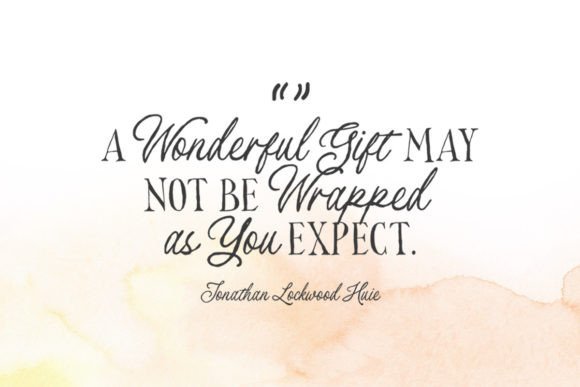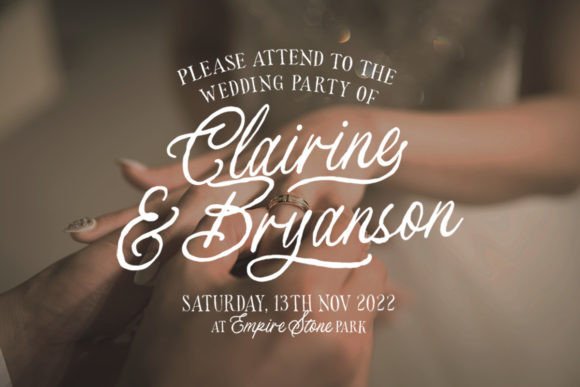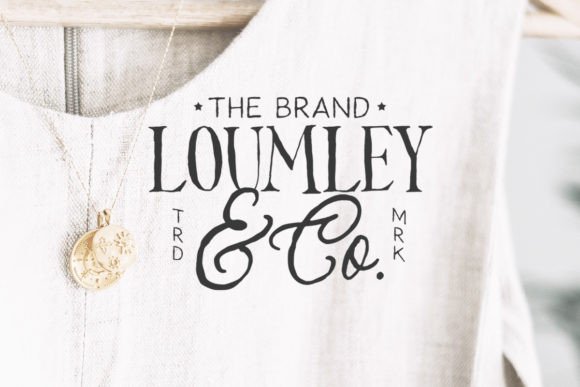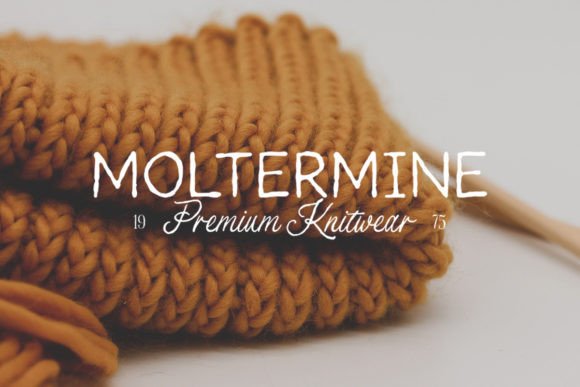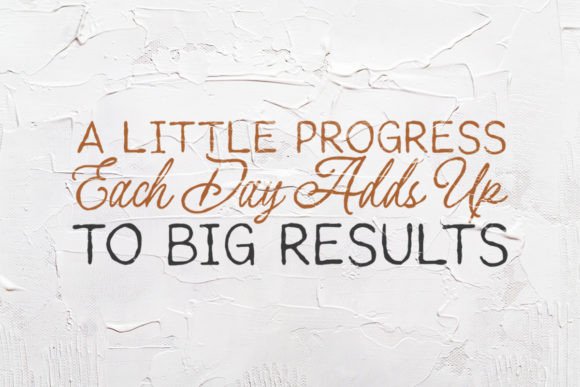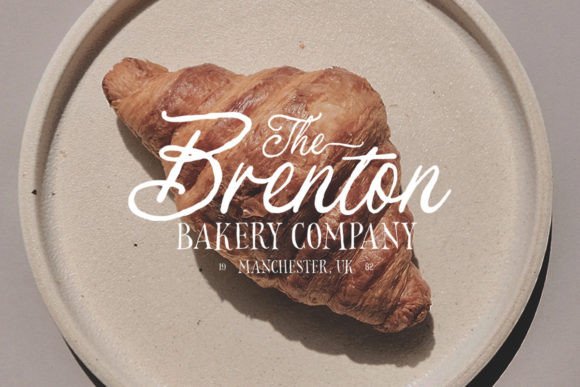
Unleash Your Creativity with the Timeless Fountain Persona Trio Font
Have you ever sat at your desk, staring at a blank page, waiting for the perfect idea to strike? For designers, this moment is all too familiar. But what if that spark of inspiration could be ignited by the perfect font? Introducing the Fountain Persona Trio Font – a stunning and elegant handwritten font trio that’s sure to captivate your audience.
With its incredibly distinct and timeless style, the Fountain Persona Trio Font is the perfect addition to any design project. Whether you’re creating a wedding invitation, a logo, or a social media graphic, this font trio is sure to elevate your design to new heights. Its value lies in its versatility and sophistication, making it a must-have for any designer looking to create spectacular designs that leave a lasting impression.
- Unique Characteristics: This font features a unique blend of modern and vintage elements, with a distinctive personality that sets it apart from other fonts.
- Persona-Based Design: As the name suggests, the font is designed to evoke a specific persona or character, making it ideal for creative projects that require a unique voice.
- Legibility: The font is carefully crafted for optimal legibility, ensuring that the text remains clear and readable even at small font sizes.
Fountain Persona Trio Font Review
I recently had the chance to work with the Fountain Persona Trio font, and I must say it’s an interesting choice. Here’s my honest take on what works and what doesn’t.
- Unique personality: Fountain Persona Trio has a distinct, quirky charm that can add a lot of character to your design.
- Legibility: The font is surprisingly legible, considering its unique flair.
- Playfulness: It’s perfect for projects that need a touch of whimsy and playfulness.
- Readability in smaller sizes: While the font is legible, it can become difficult to read at very small sizes.
- Limited versatility: Fountain Persona Trio may not be the best choice for formal or professional projects.
- Overuse: Its quirky charm can quickly become overwhelming if overused.
Overall, Fountain Persona Trio is a fun, playful font that’s perfect for projects that need a unique touch. However, it may not be the best choice for every project, especially those requiring a more formal tone.
Tips for Getting the Most Out of Fountain Persona Trio Font
1. Use Fountain Persona Trio Font for headings and titles to create a cohesive look.
2. Combine Fountain Persona Trio Font with other fonts to create a unique and visually appealing design.
3. Experiment with different font sizes and styles to create a dynamic look.
Fountain Persona Trio Font is ideal for:
1. Creative projects, such as book covers, posters, and advertisements.
2. Personal branding, such as business cards and websites.
3. Educational materials, such as infographics and presentations.
Alternatives to “Fountain Persona Trio Font” for Designers
Great Vibes Font is a beautiful, elegant script font ideal for creating a luxurious and sophisticated look. It’s perfect for designing wedding invitations, high-end branding, and other materials that require a touch of class.
Compared to Fountain Persona Trio Font, Great Vibes Font has a more refined and sophisticated look, making it suitable for formal designs. It’s also more versatile and can be used for both digital and print materials.
Pacifico Font is a modern, cursive font that’s perfect for creating a relaxed and friendly atmosphere. It’s ideal for designing beach-themed branding, social media graphics, and other materials that require a laid-back vibe.
What is the recommended font size for using the Fountain Persona Trio Font?
The Fountain Persona Trio Font is designed to be versatile and can be used at a range of font sizes. However, for optimal readability, we recommend using font sizes between 10pt and 24pt. This will ensure that the font remains legible and visually appealing.